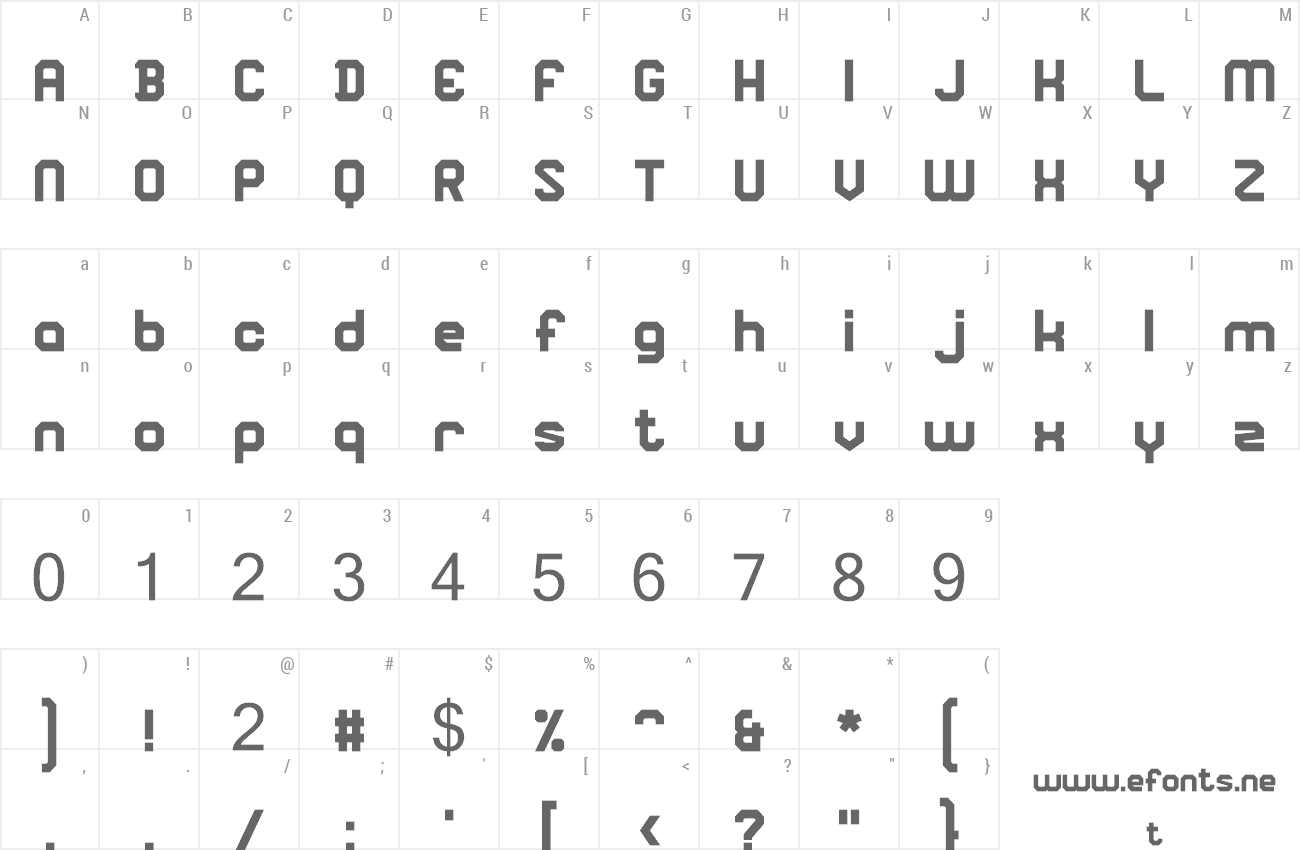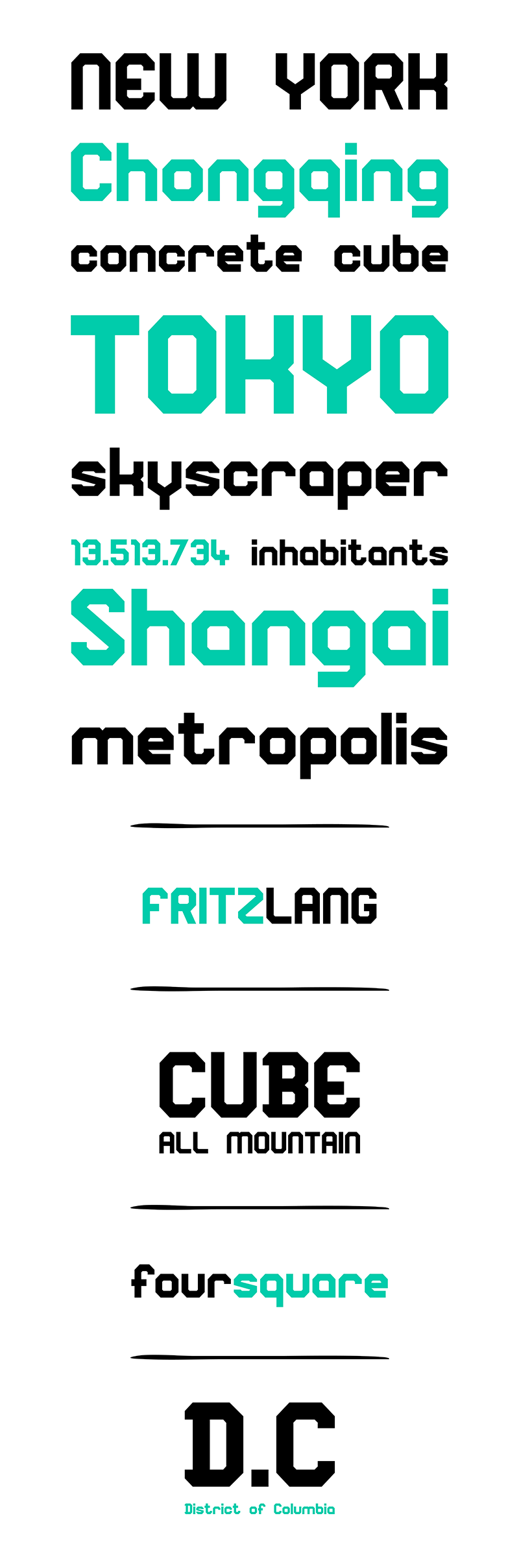
| Font name: | Square Block |
| Author: | Monofonts |
| Note by Monofonts | |
Square Block is a Decorative Font inspired by the architecture of Florenceās suburbs. A Monospaced Display Font with a massive structure, suitable for resoluted messages. Useful for advertisings, billboards, logos and headline. Square Block Family: Square Block Regular FULL version available here > https://www.monofonts.com/products/square-block For commercial use, you can purchase the font at: https://www.monofonts.com/products/square-block For more info on our license: http://www.monofonts.com/license |